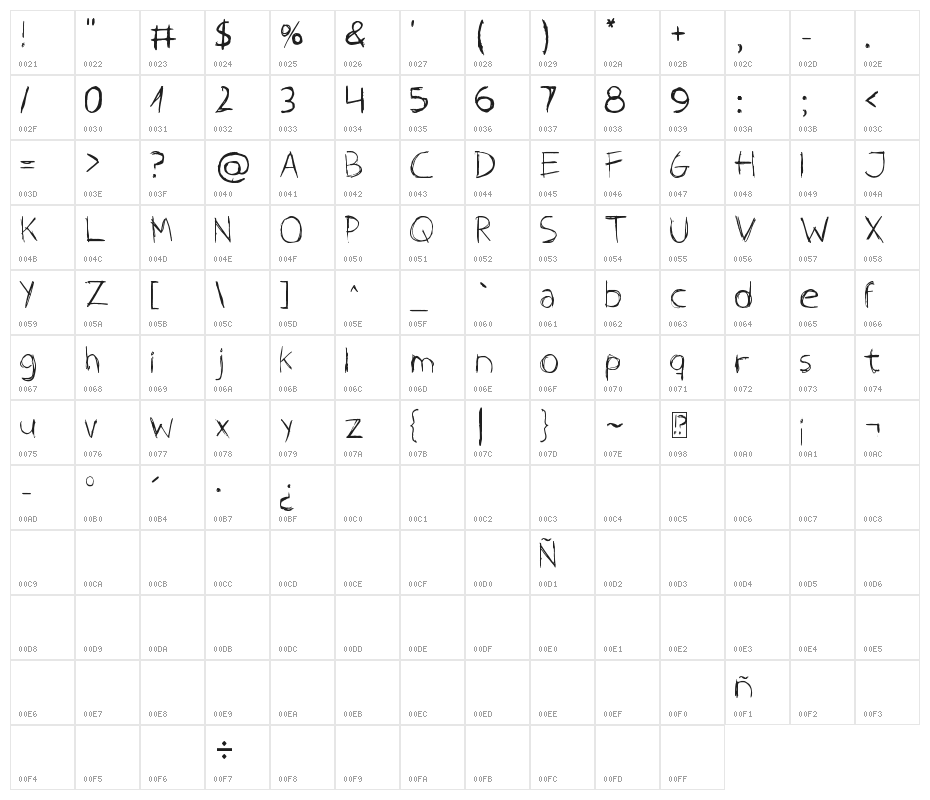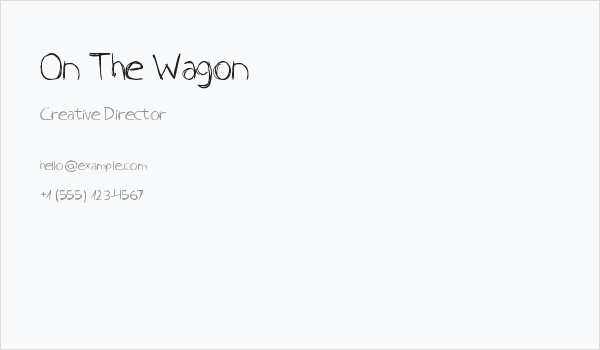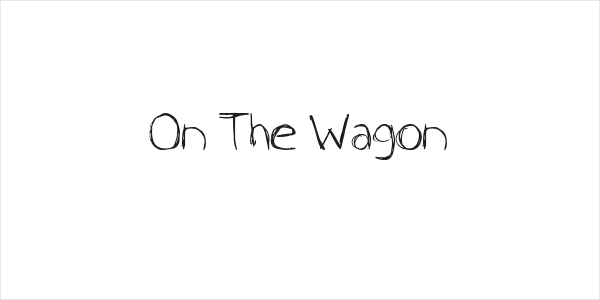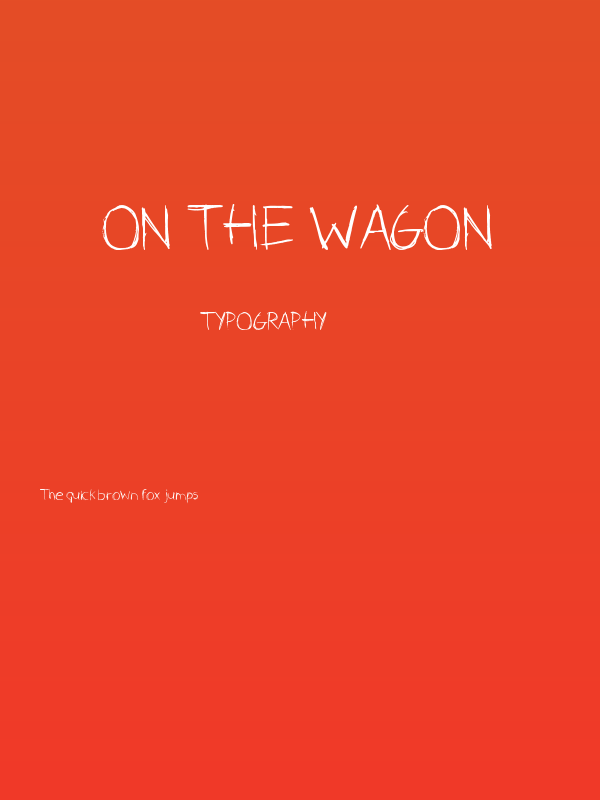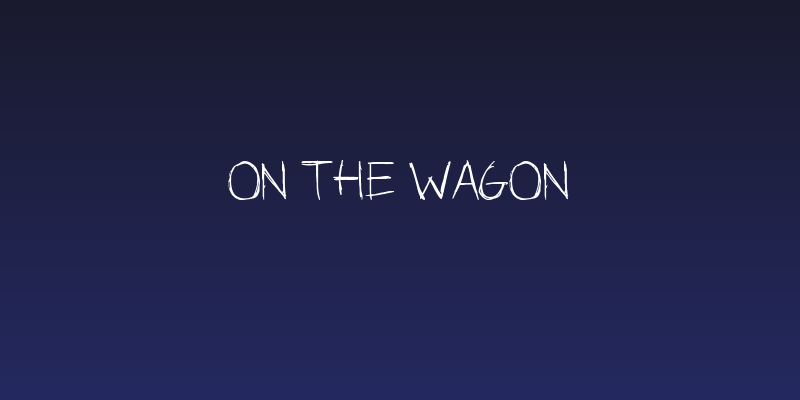
On The Wagon Font
On The Wagon Description
This font features a raw, hand-drawn style with a distinctly rough and textured appearance. The strokes are uneven, giving it a dynamic and energetic feel. Each character appears as if it was sketched with a marker or brush, adding a sense of spontaneity and creativity. The uppercase and lowercase letters maintain a consistent style, while the numbers and special characters complement the overall aesthetic. This font's unique character makes it stand out, ideal for projects that require a bold, artistic touch.
| Proposed Projects | Perfect for artistic projects, album covers, posters, and creative branding. |